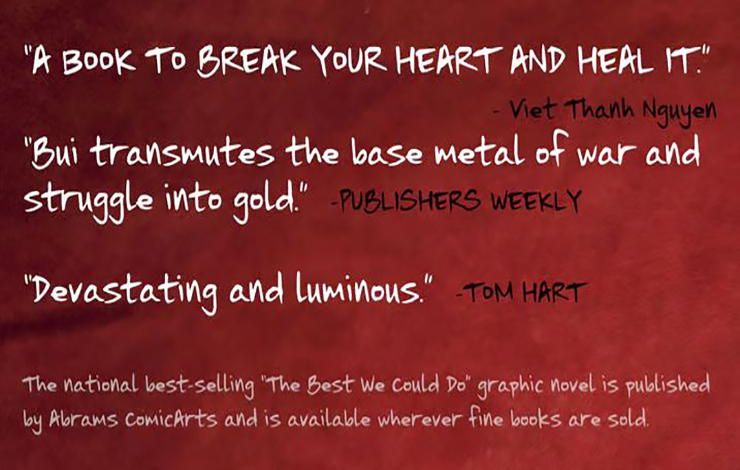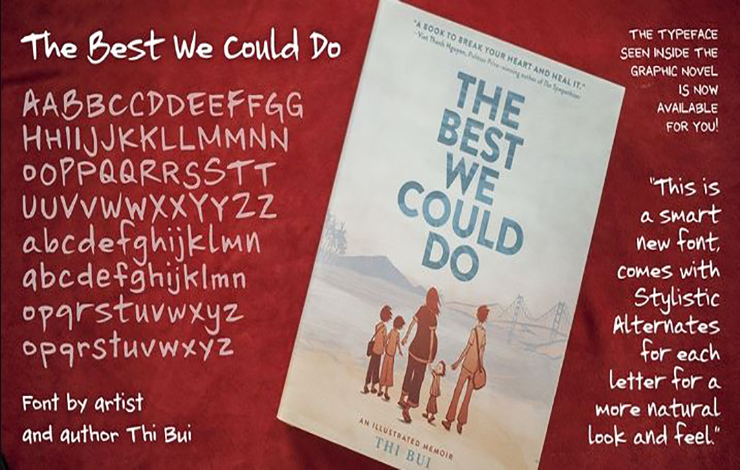
The Best We Could Do Font is a beautiful brush-script handwriting typeface designed by Chank Diesel and Thi Bui and published by Chank.
The font is inspired by the authors’ graphic memoir, “The Best We Could Do,” which tells the story of a family’s journey from war-torn Vietnam to the United States.
The font features a casual, hand-drawn style that captures the essence of a handwritten script. It has a natural flow and organic feel that makes it perfect for a wide range of design applications, including book covers, posters, greeting cards, and more.
The font can be used in a variety of design styles, from playful and whimsical to serious and elegant. It is also easy to read, making it a great choice for body text or headings.
The font comes in a single style, which features a regular weight and a full set of uppercase and lowercase letters, as well as numbers and punctuation.